Y Soft
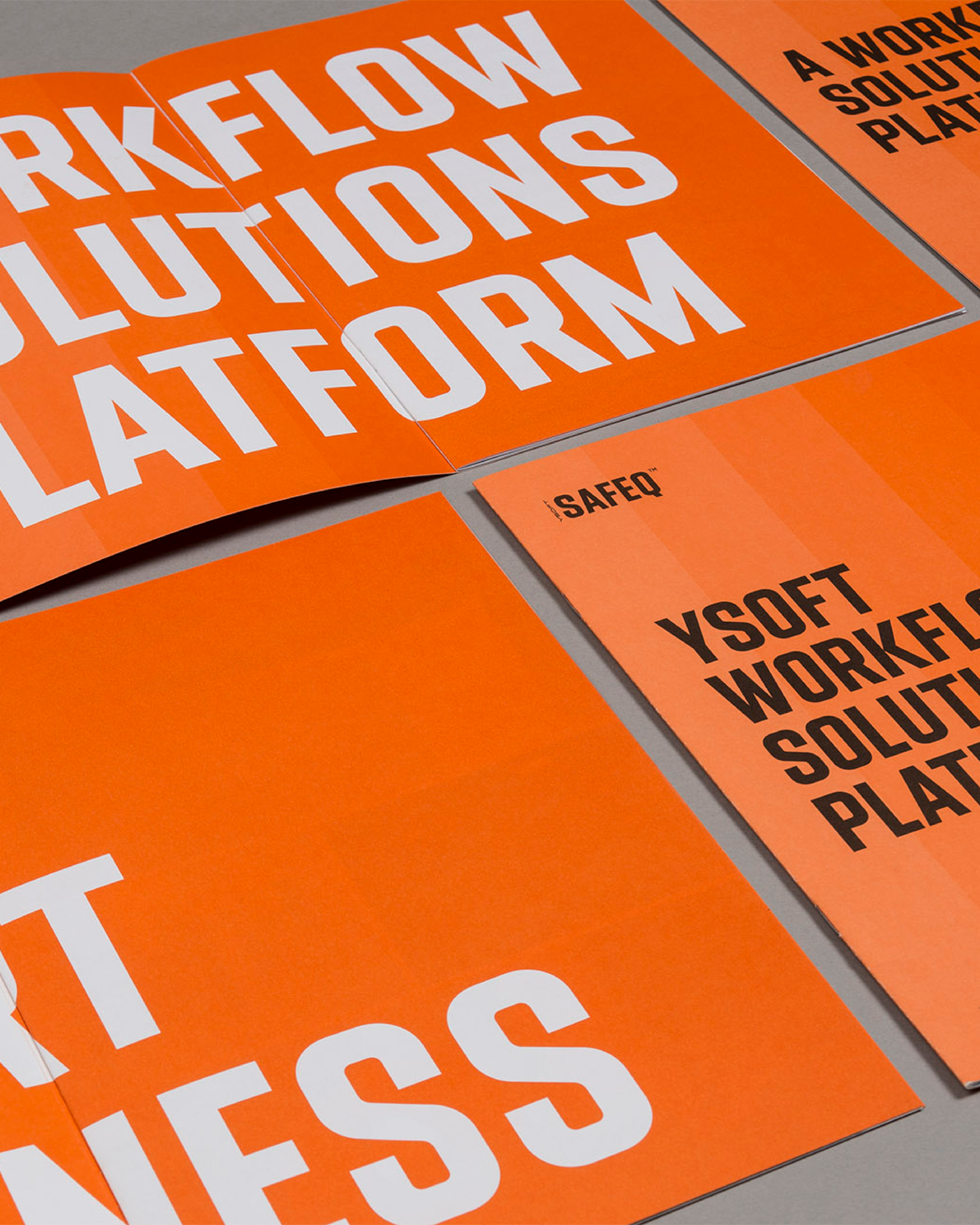
At the core of the visual identity system for this manufacturer of software, hardware, and intelligent office solutions is a simple yet distinctive geometric display typeface, developed in two weights.